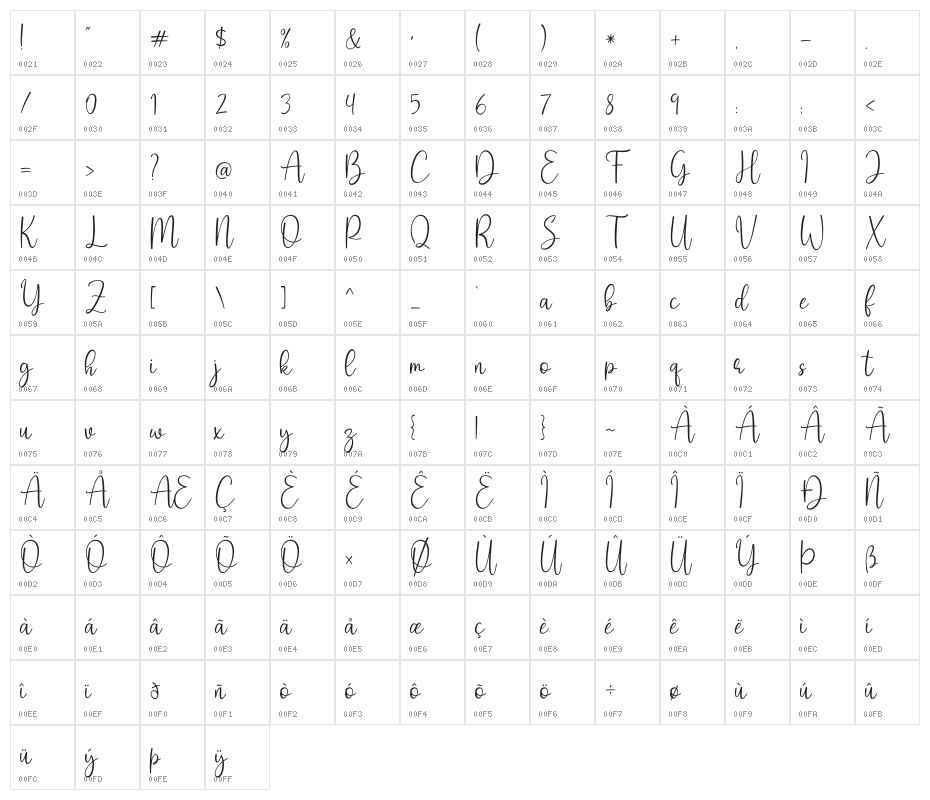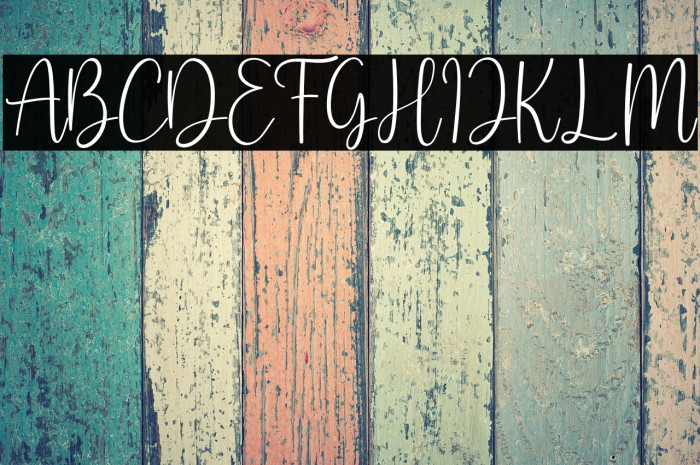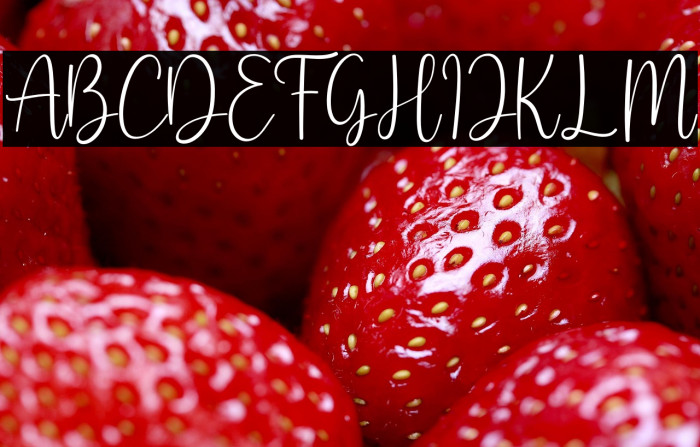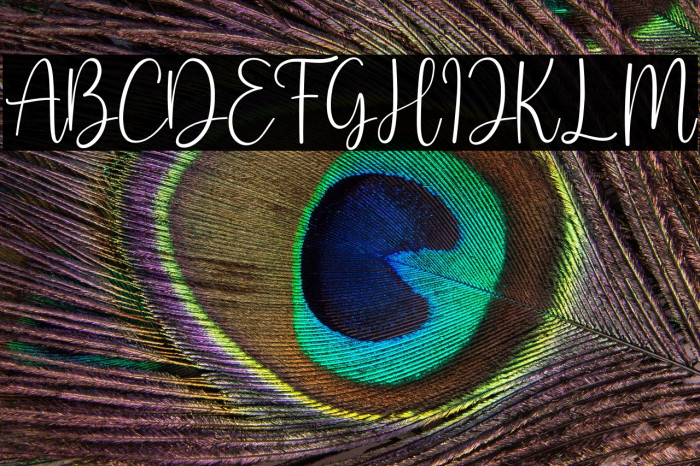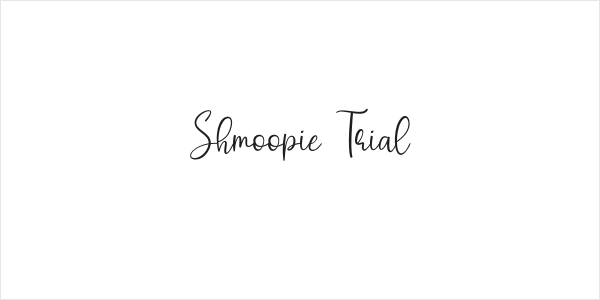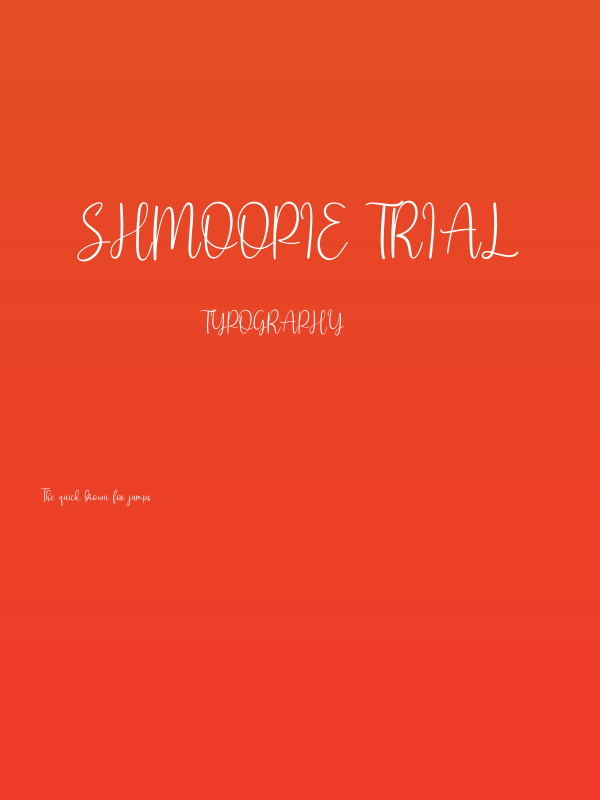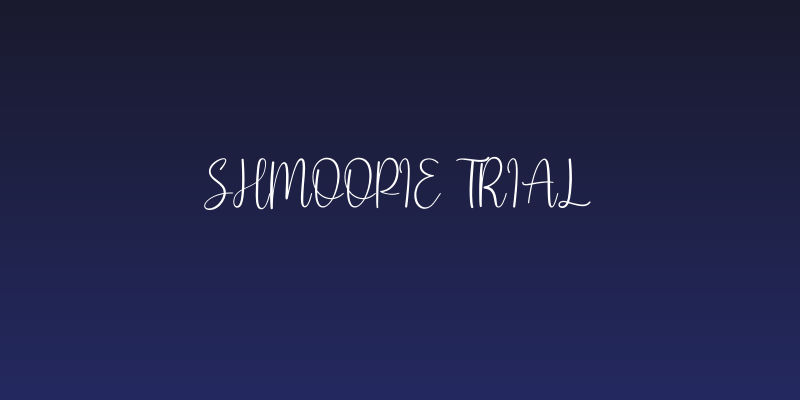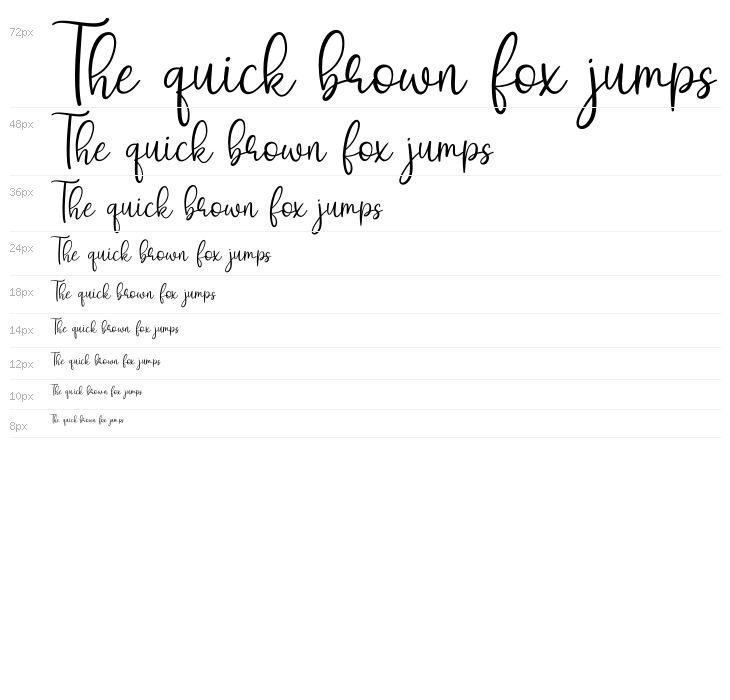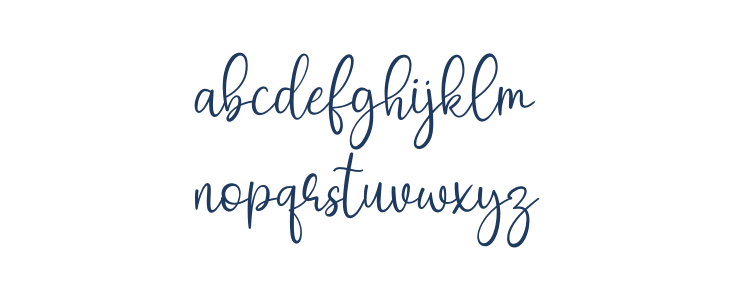
Shmoopie Trial Font
Shmoopie Trial Description
This font features a playful and whimsical script style, characterized by its flowing, cursive letters that mimic natural handwriting. The uppercase letters are tall and elegant, with a slight slant, while the lowercase letters are more rounded and compact, maintaining a consistent flow. The numbers and special characters are designed to complement the overall style, adding a touch of charm and personality. The strokes are smooth and consistent, giving the font a polished and professional appearance. This font is well-suited for projects that require a personal touch, such as invitations, greeting cards, and branding materials.
Use CaseLogos, Invitations, Greeting Cards
Proposed ProjectsIdeal for wedding invitations, greeting cards, personal branding, and creative projects.